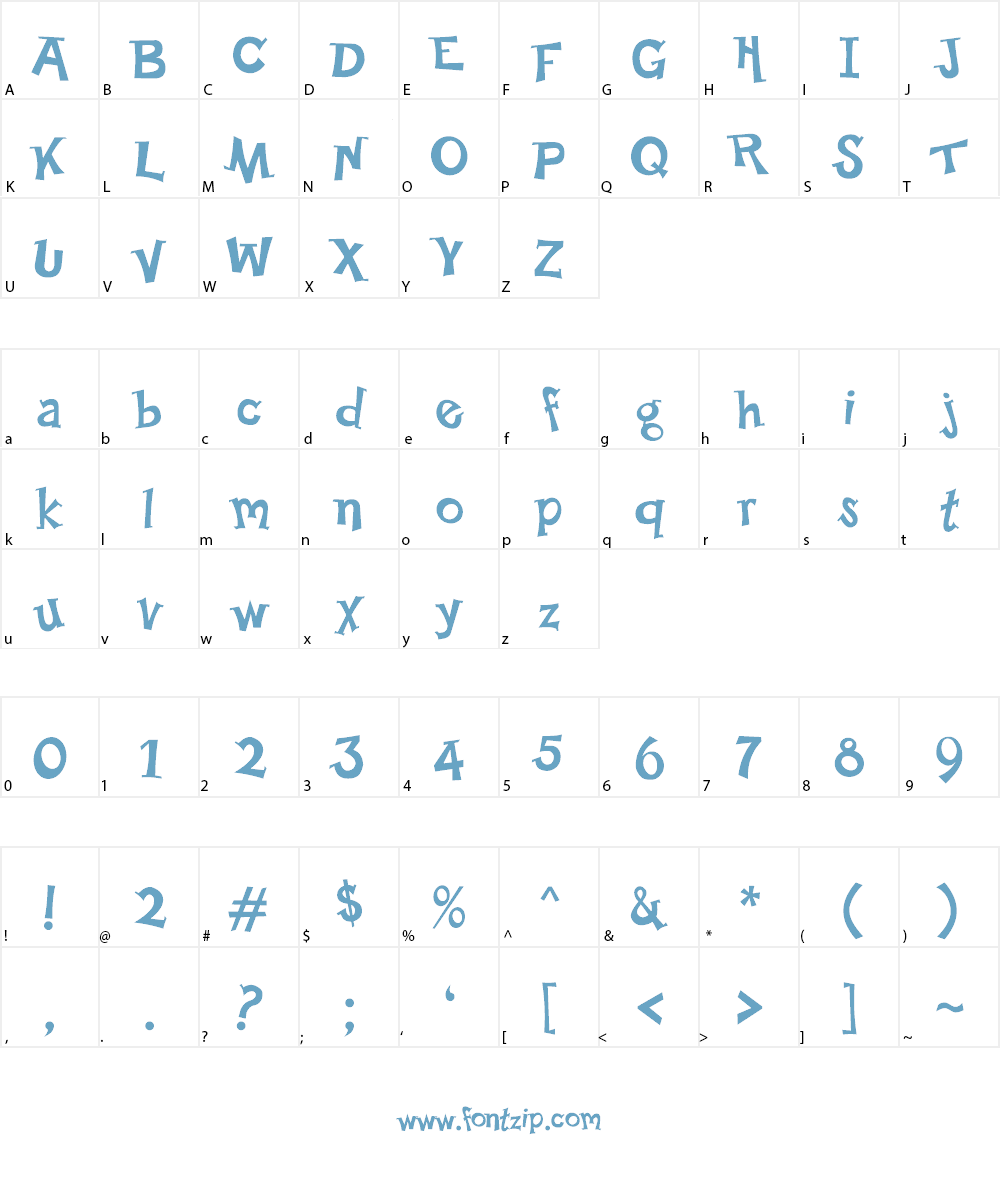
A font for light and fun projects. I designed this with the idea to have a happy whimsey to the look, but to remain legible and not be completely spastic in weight or feel.